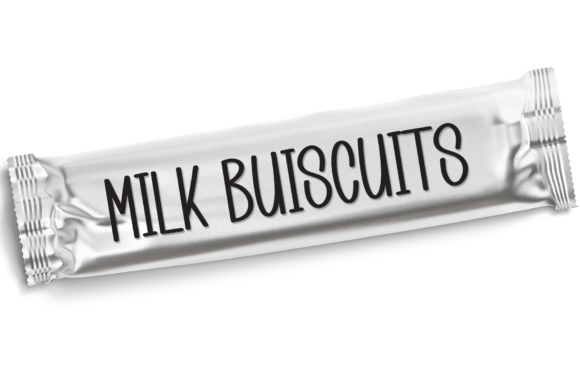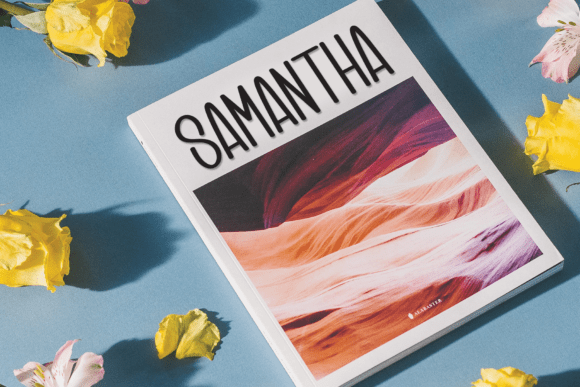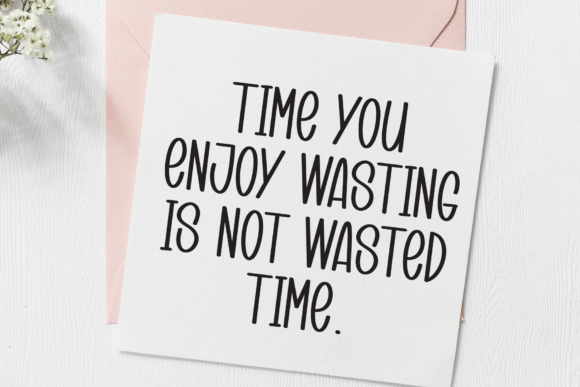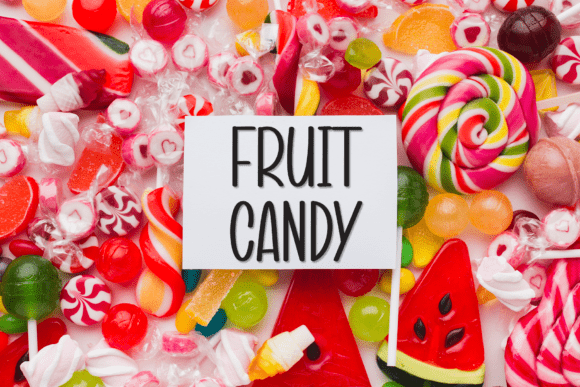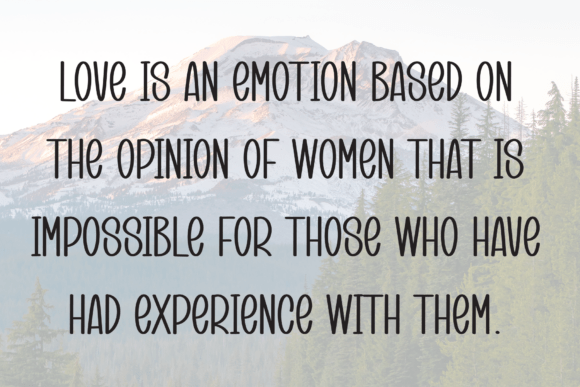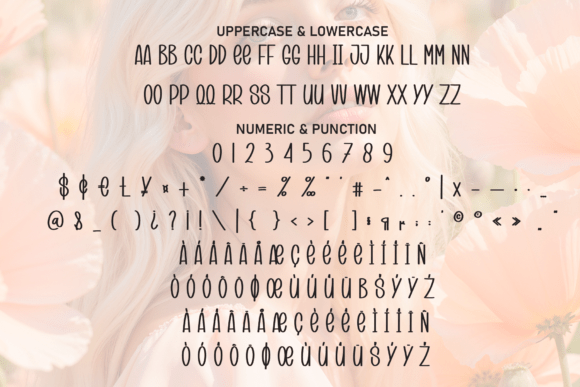
Unlocking the Power of Beautiful Font: A Creative Ally
Remember the moment when you created a heartfelt card for a loved one or designed a wedding invitation that truly captured the essence of the occasion? That spark of creativity is what drives us as designers, and it’s exactly what the Beautiful Font, Sweet Friendliness, is here to ignite.
Hand-crafted with charm and allure, Sweet Friendliness is a delightful display font that effortlessly elevates your projects into touching tokens of emotional art. Whether you’re working on a wedding invitation or a heartfelt greeting card, this font flawlessly transforms your design into a cherished keepsake. As a designer, you know the value of a perfect font in bringing your vision to life, and Sweet Friendliness is more than just a typeface – it’s a trusted ally in your creative journey.
- Unique Characteristics: Elegant and refined design with subtle nuances, making it perfect for high-end publications and branding.
Beautiful Font Review
Overall, I think the Beautiful Font has a lot going for it ✨. The design is modern and sleek, making it perfect for any project that needs a touch of elegance. The font’s clean lines and minimalist aesthetic give it a timeless quality that will never go out of style.
The font’s versatility is another major plus ✨. It comes in a range of weights, from light to bold, allowing you to tailor the look to suit your needs. Whether you’re creating a logo, heading, or body text, the Beautiful Font has got you covered.
However, there are a few limitations to consider ⚠️. For one, the font can feel a bit sterile at times, lacking the warmth and personality of some other fonts. Additionally, the light weight can be a bit difficult to read in small sizes.
Pros:
- Modern and sleek design
- Highly versatile
- Perfect for logos, headings, and body text
- Timeless quality
Cons:
- Can feel sterile at times
- Light weight can be difficult to read in small sizes
Overall, I would give the Beautiful Font 4 out of 5 stars. While it may not be perfect, its strengths far outweigh its weaknesses, making it a solid choice for any design project.
Beautiful Font is perfect for creating visually appealing headings, titles, and body text. Use it for branding materials, social media graphics, and marketing materials to add a touch of elegance and sophistication.
Experiment with different font sizes, colors, and styles to create a unique look. Pair Beautiful Font with other elegant fonts to create a harmonious design. Use Beautiful Font to draw attention to important information or to create a sense of hierarchy in your design.
Playfair Display is an elegant serif font perfect for creating a sophisticated and luxurious feel. It’s ideal for use in headings, titles, and other high-impact areas where a touch of elegance is desired. Compared to Beautiful Font, Playfair Display has a more refined and ornate look, making it suitable for high-end branding and design projects.
Lato is a modern sans-serif font that’s clean, simple, and highly legible. It’s a great choice for body text, menus, and other areas where readability is key. Compared to Beautiful Font, Lato is more minimalist and versatile, making it suitable for a wide range of design projects, from corporate websites to mobile apps.